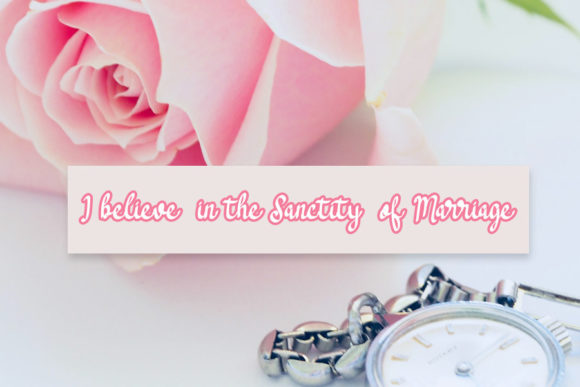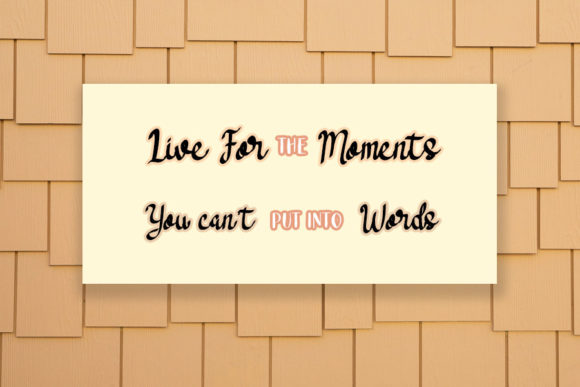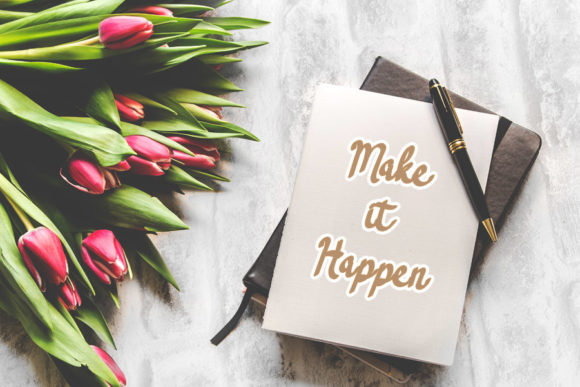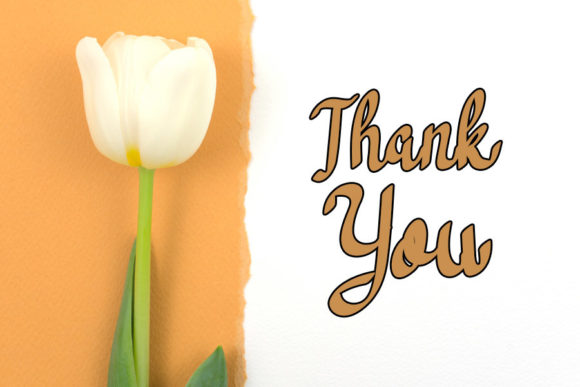
The Moment that Changes Everything
Have you ever been stuck on a design project, struggling to find the perfect font to bring your vision to life? You spend hours browsing through font libraries, but nothing seems to capture the essence of your idea. Then, like a breath of fresh air, you stumble upon the perfect match – Beautiful Moment Font. Its elegant script and stylish alternates transport you to a world of sophistication and refinement, making it the perfect choice for any project.
Beautiful Moment Font is more than just a pretty face; it’s a valuable tool for designers looking to elevate their work. With its chic and refined style, it’s the perfect addition to any design portfolio, from wedding invitations to luxury brand logos. Whether you’re a seasoned pro or just starting out, Beautiful Moment Font is sure to make a lasting impression.
Beautiful Moment Font Key Features
- Unique Characteristics: The font features elegant, cursive script lines with subtle flair, creating a beautiful and eye-catching effect.
Beautiful Moment Font Review
✨ I really like the elegant and delicate feel of the Beautiful Moment Font. It’s perfect for creating a sophisticated and refined look in any design project. The font is well-suited for wedding invitations, fine art, and luxury branding. It’s also great for adding a touch of whimsy and romance to your designs.
✨ The Beautiful Moment Font is highly customizable, allowing you to adjust the size, color, and style to fit your needs. The font is also quite versatile, making it suitable for both print and digital designs.
⚠️ One of the main limitations of the Beautiful Moment Font is that it’s not ideal for headlines or titles. The font is best used in smaller sizes and for body text. This can limit its use in certain design projects.
⚠️ Additionally, the Beautiful Moment Font may not be as readable at very small sizes, which can make it difficult to use in designs where text needs to be displayed in small fonts.
I would recommend the Beautiful Moment Font for designers who want to add a touch of elegance and sophistication to their projects. However, it’s essential to be aware of its limitations and use it in the right context. Overall, I’m impressed with the font’s versatility and customizability.
- Delicate and elegant feel
- Versatile for both print and digital designs
- Not ideal for headlines or titles
- May not be readable at very small sizes
Beautiful Moment Font is ideal for:
- Creative projects requiring a playful and elegant touch.
- Wedding invitations and other special occasion designs.
- Brand identities and logos that require a unique and memorable look.